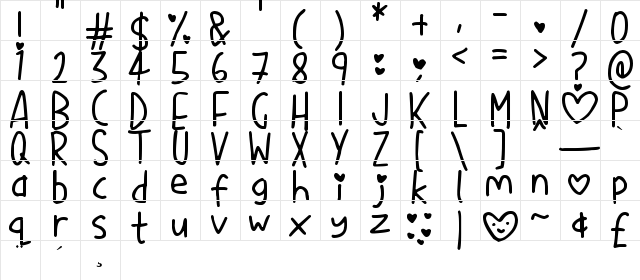
Love Me Regular
Design Context for Love Me Typeface
Love Me is a composed and adaptable typeface that performs quietly and consistently across a wide range of design contexts.